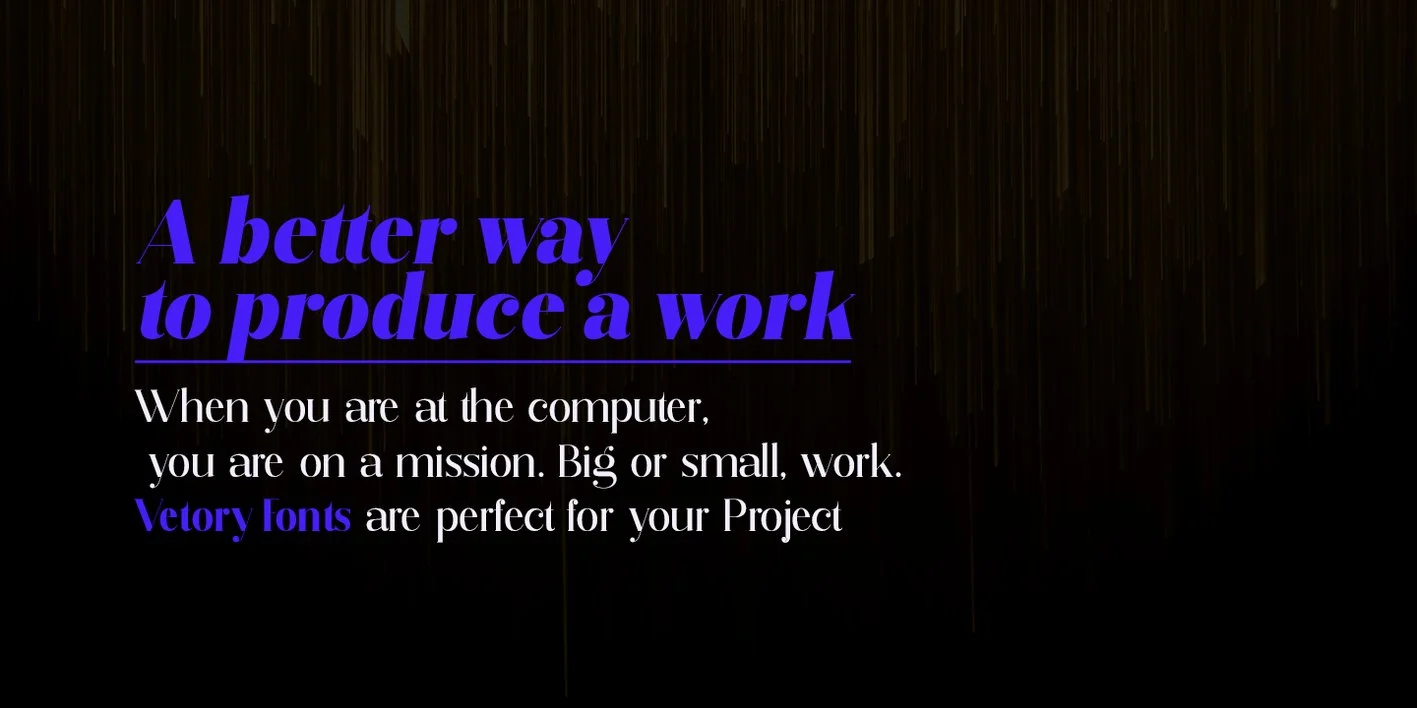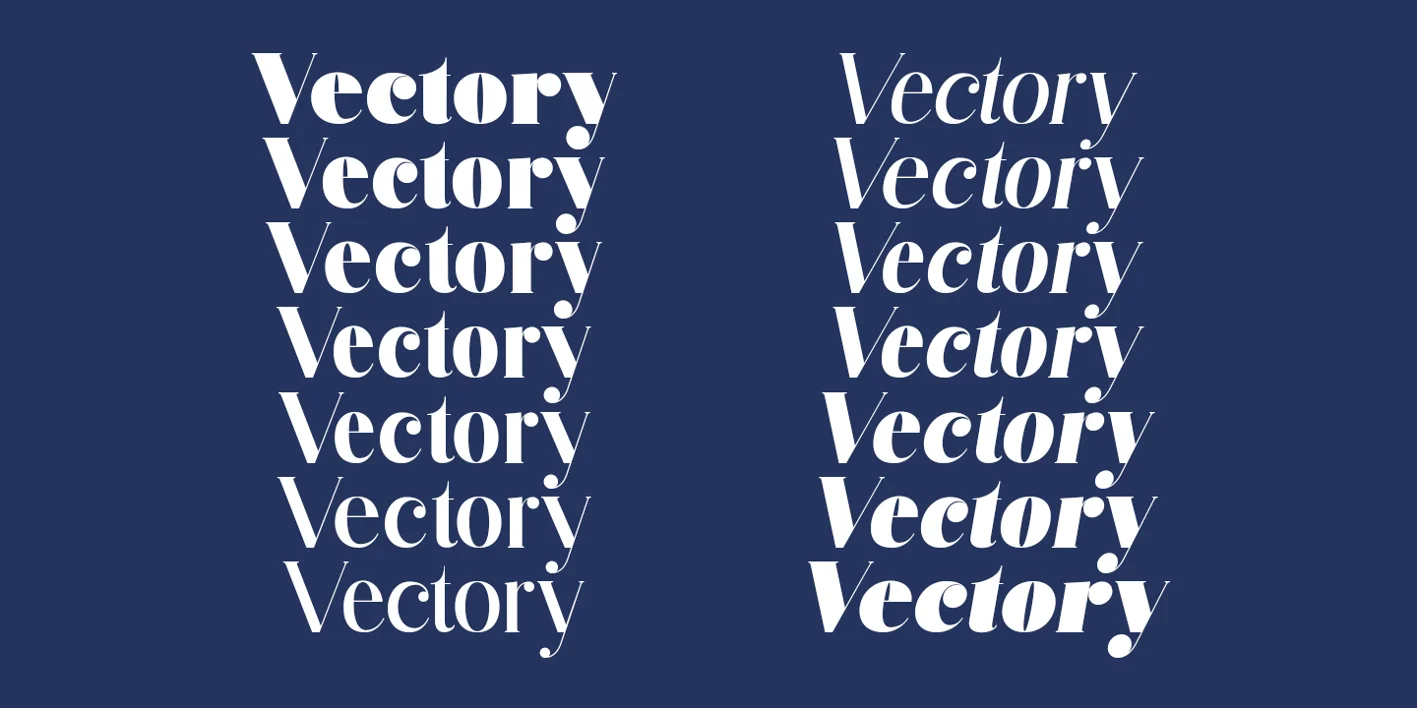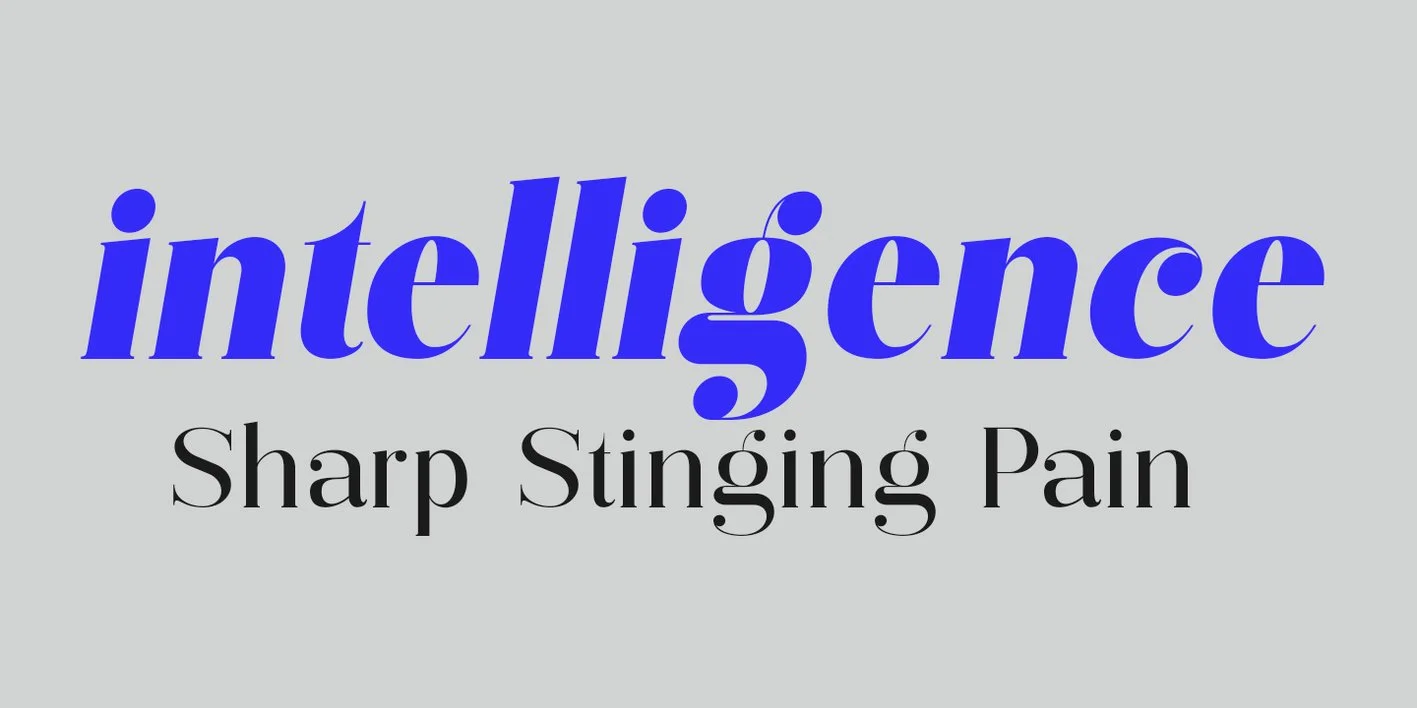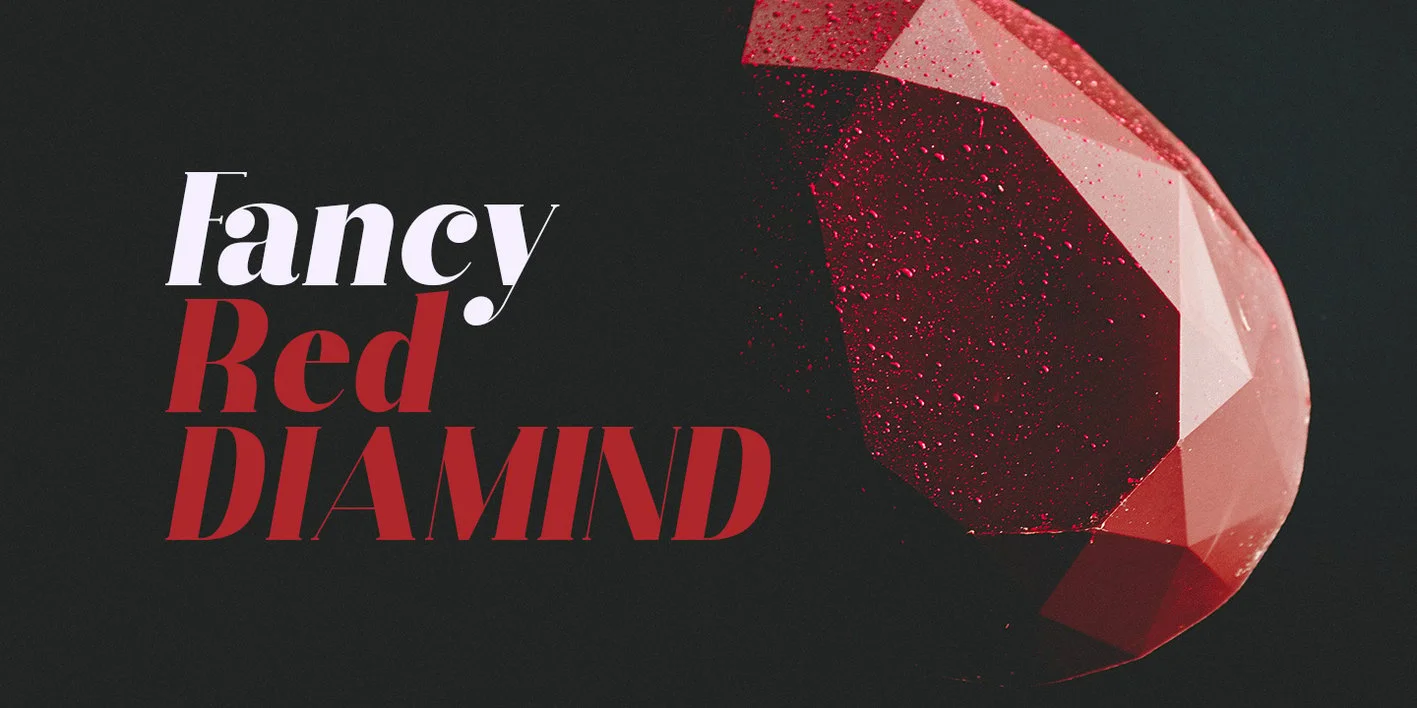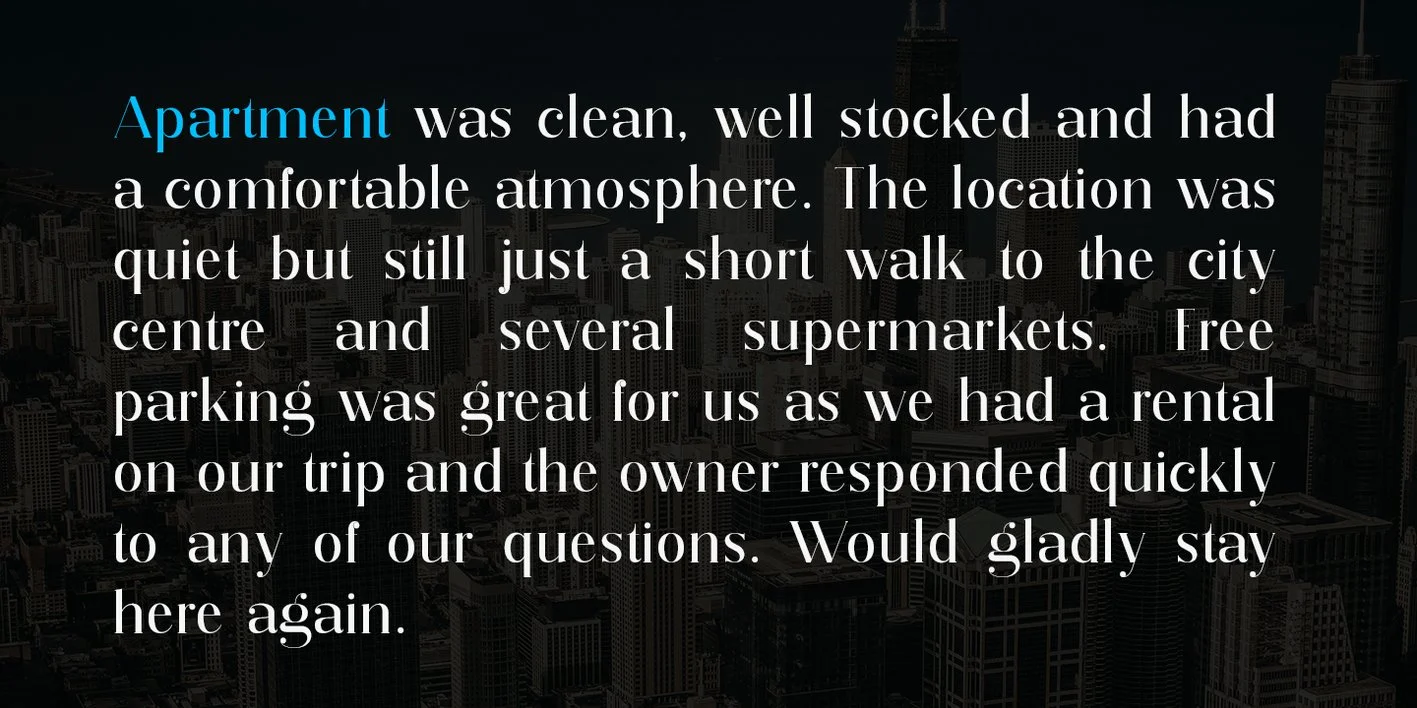
Vectory Font
When a design brief calls for both distinctive character without sacrificing readability and immediate visual impact, type choices matter — Vectory answers that brief. The typeface brings a versatile sensibility to a broad range of creative disciplines, with the kind of restraint that lets content lead that holds up whether the work is print-first or screen-first.
In practice, Vectory proves particularly effective for packaging design, environmental graphics, poster creation, logo design, signage systems. Designers reaching for it find that the type decisions feel resolved rather than laboured — a useful quality when client timelines are tight.
The range of applications extends to web design, editorial layouts, product labels, annual reports. That breadth is deliberate: the proportions and spacing were stress-tested across a wide range of mock briefs before the typeface was finalised.
Freelance designers across print and digital disciplines find Vectory a reliable choice for projects that demand both personality and restraint. The design avoids the self-conscious quirkiness that dates quickly, settling instead for considered distinctiveness that holds up over time.